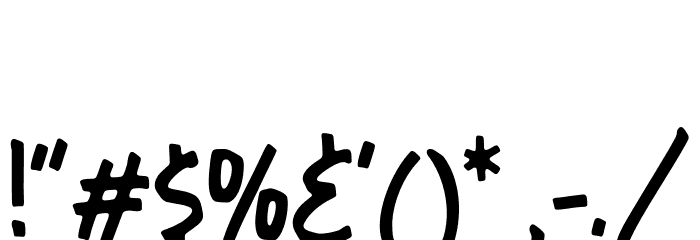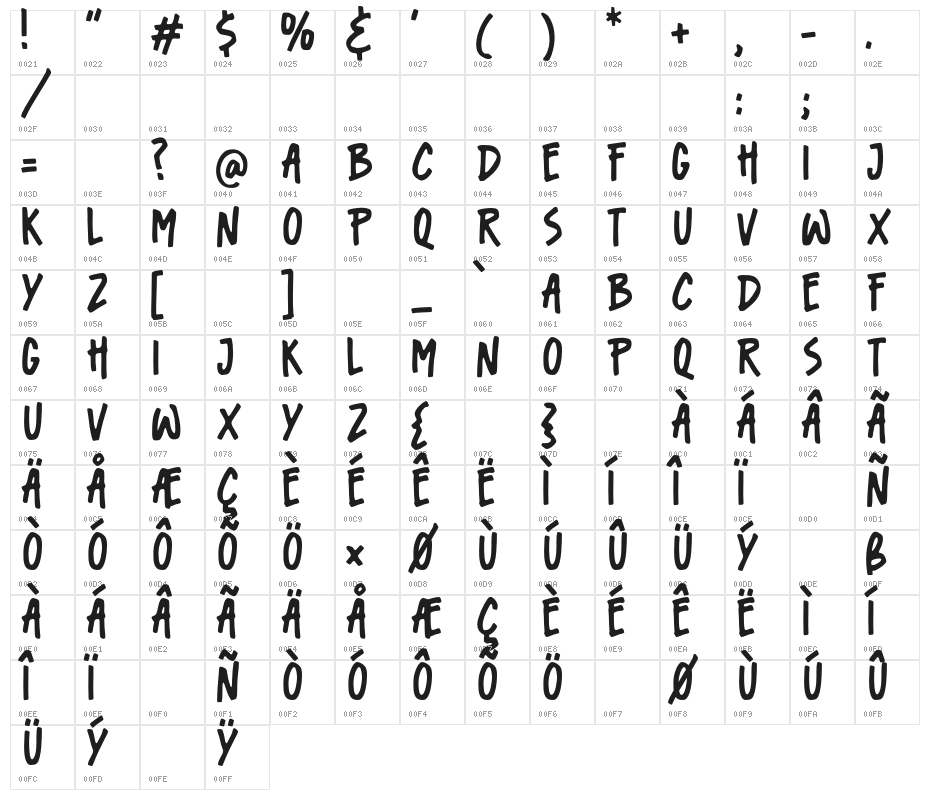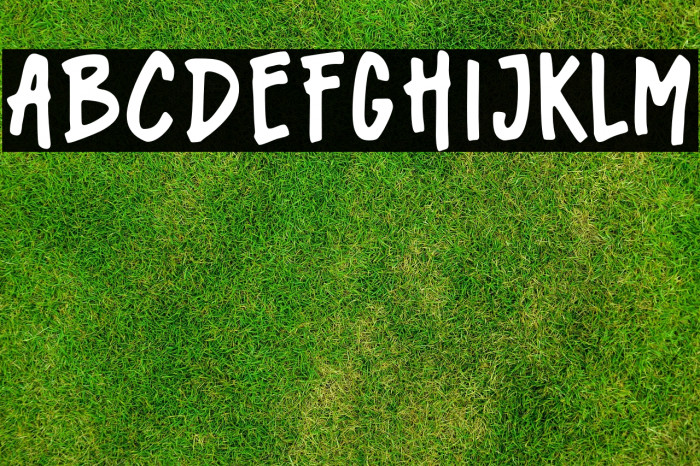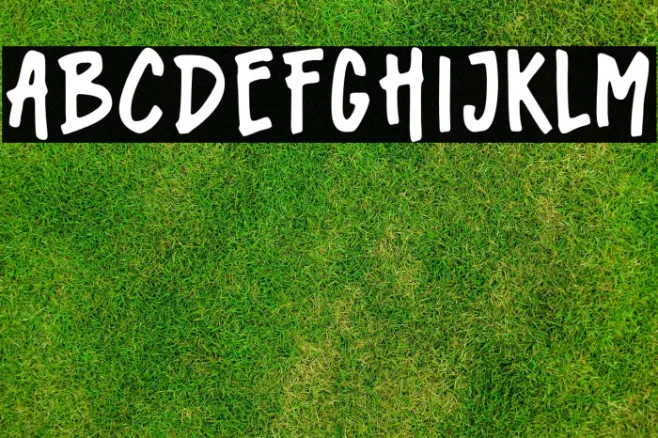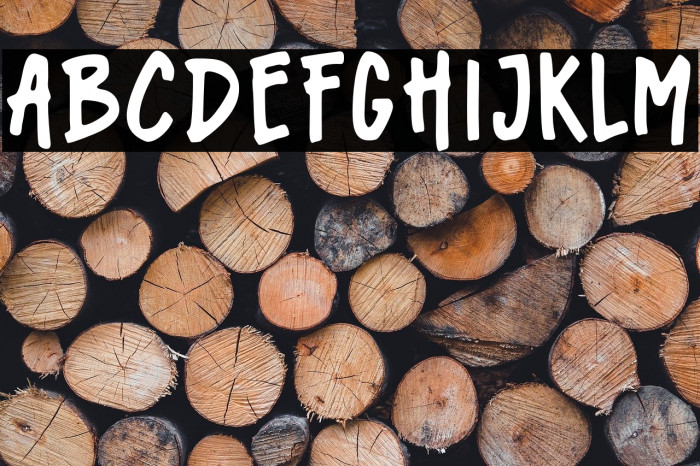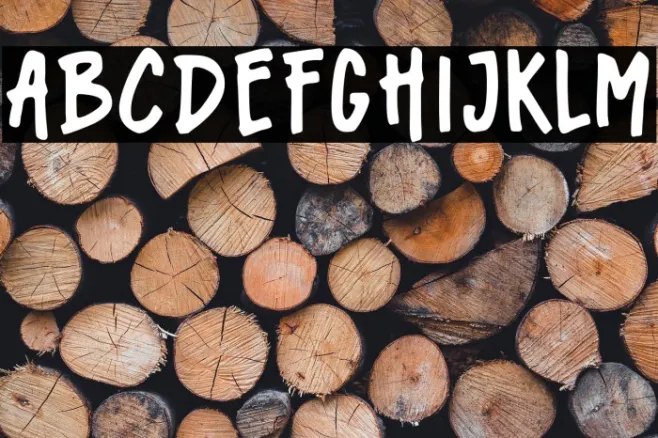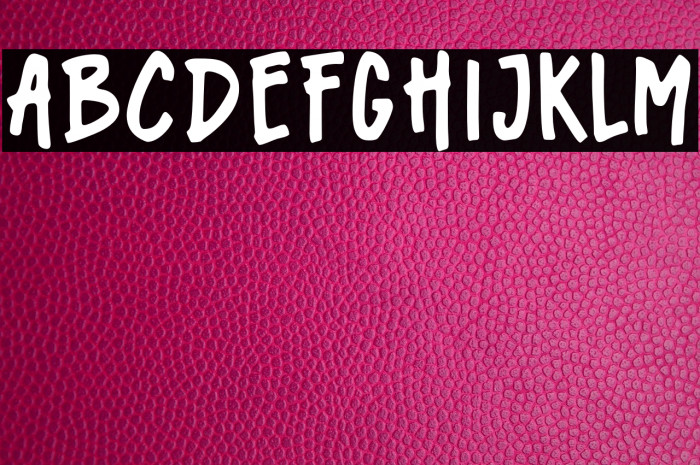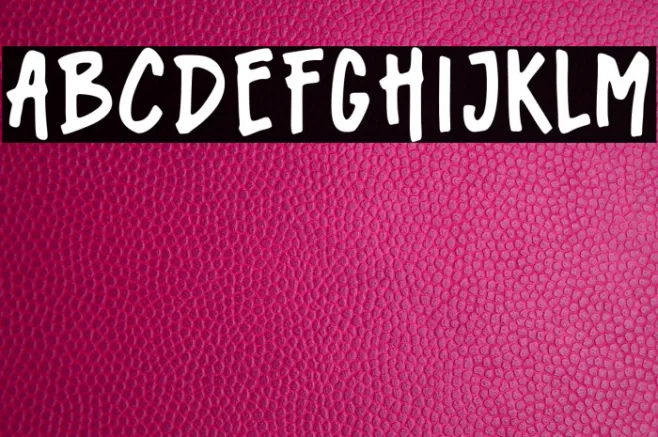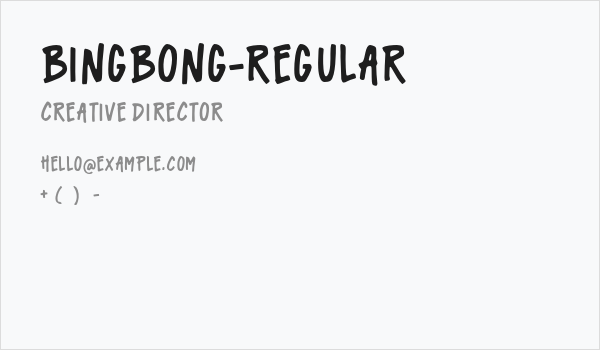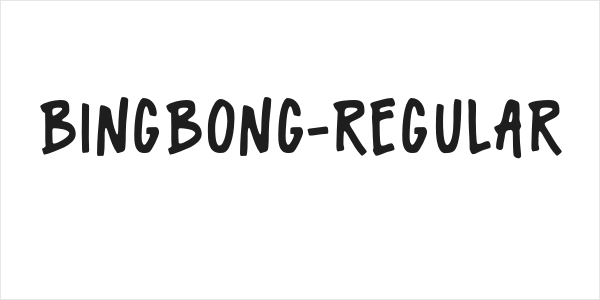
Bingbong-Regular Font
Bingbong-Regular Description
This playful and energetic font features bold, hand-drawn characters with a casual and informal style. The letters have a slightly irregular shape, giving them a whimsical and friendly appearance. The strokes are thick and consistent, providing a strong visual impact. The font includes both uppercase and lowercase letters, as well as a variety of special characters, making it versatile for different design needs. Its unique style is perfect for projects that require a touch of fun and creativity.